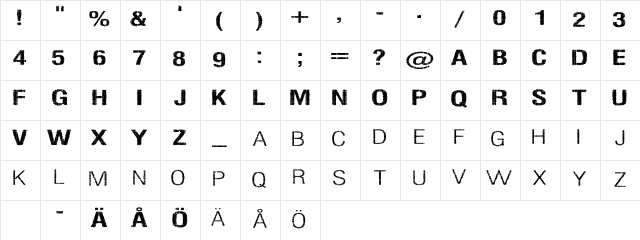
Silent Hell of Cheryl Extended Regular
Design Context for Silent Hell of Cheryl Extended Typeface
Silent Hell of Cheryl Extended offers clean, dependable letterforms without strong stylistic allegiance, making it a practical choice for designers who need flexibility.